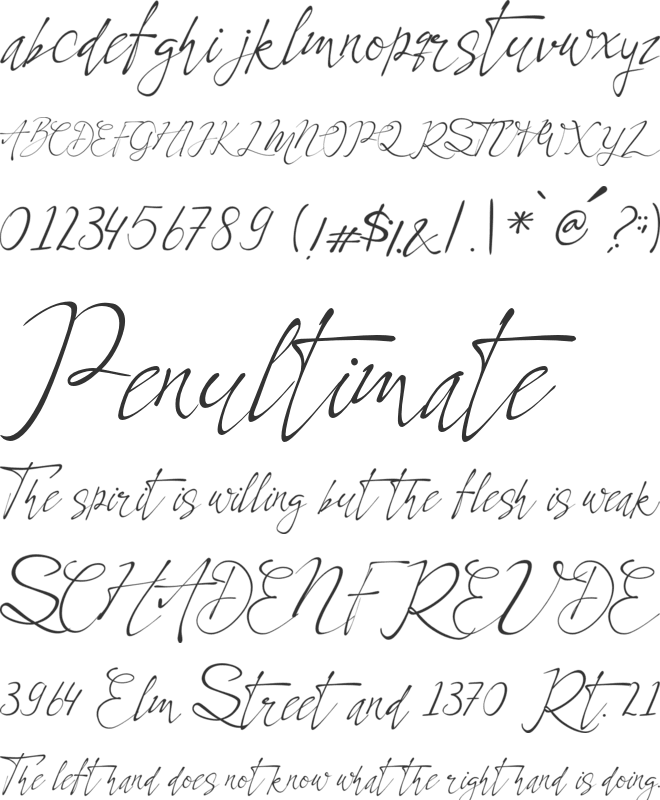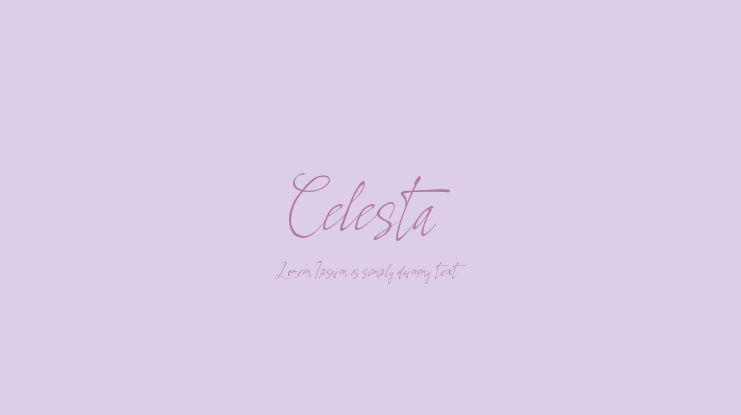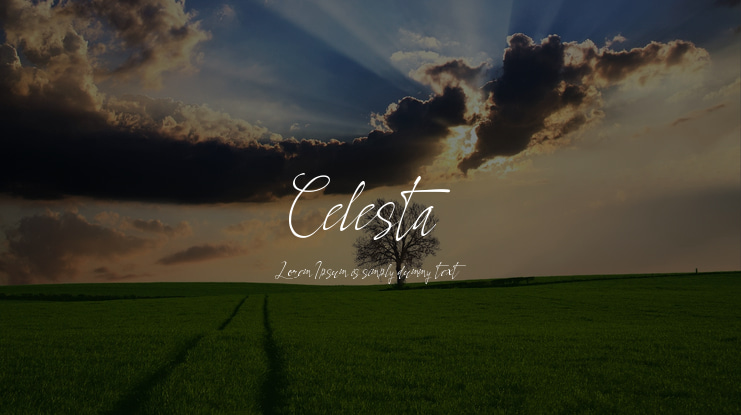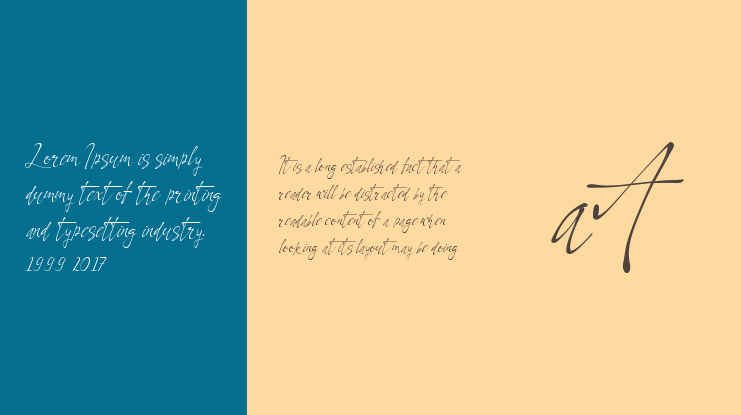
Celesta Font
Introducing the Celesta Script font. This font is very suitable for logos, quotes, magazines, poster, and others. With natural hand touch, this font is the best choice for you. Note : This font is partial and free for PERSONAL USE only. For any COMMERCIAL USE, please contact me at